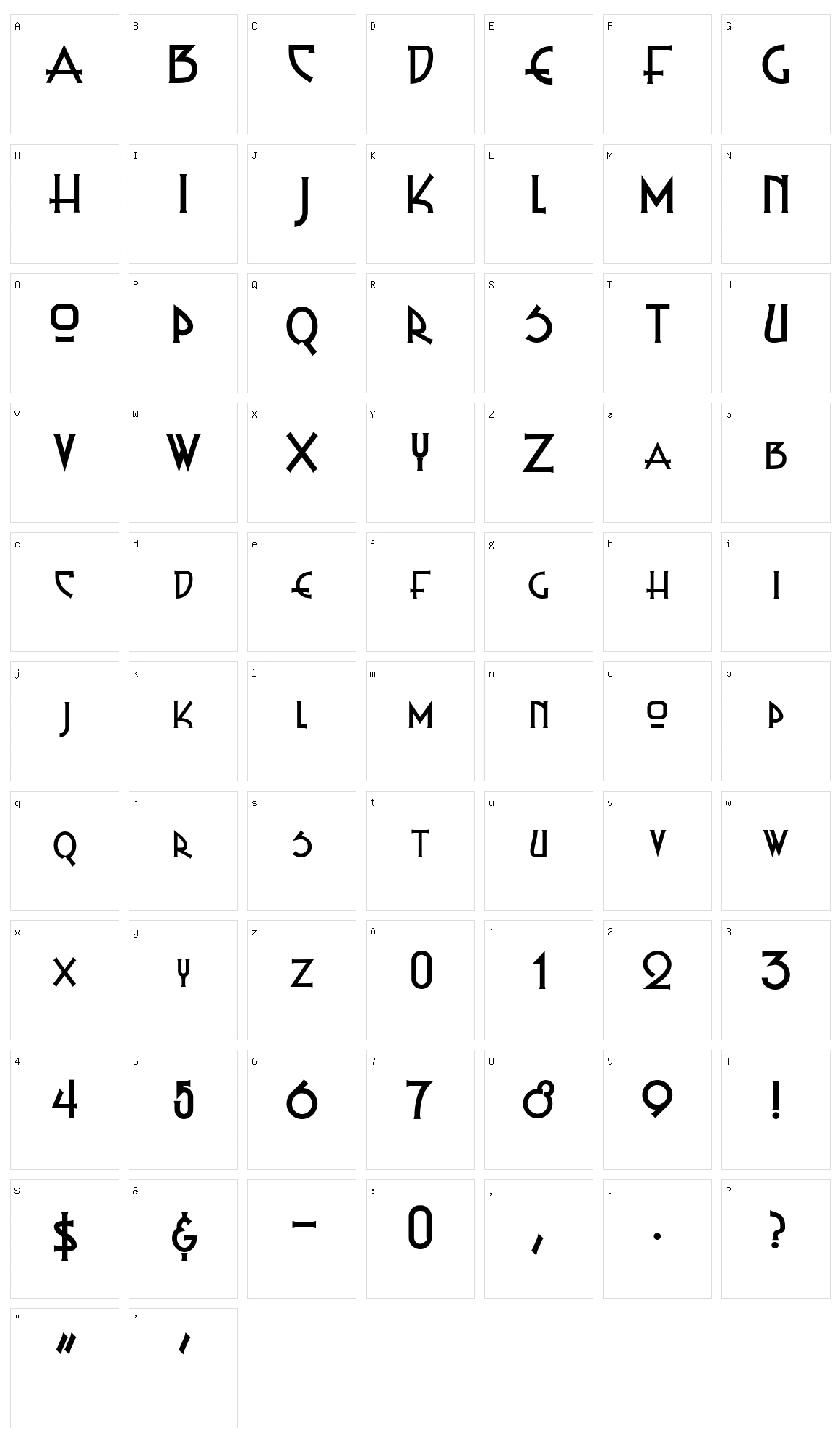
The free font Russel Write is carefully designed by Gary David Bouton, showcasing a thoughtful balance of creativity and usability and falls under the Retro font style. When you download the ZIP file, it contains only 16.33 KB of font files, making it lightweight and quick to download. Please review the license details below to understand permitted usage and distribution rights. If license information is not available, we recommend using this font for personal projects only or contacting the author directly for commercial usage permissions.